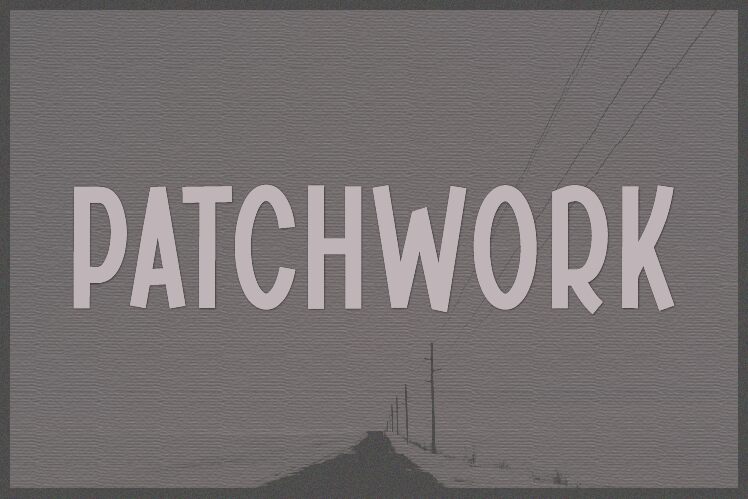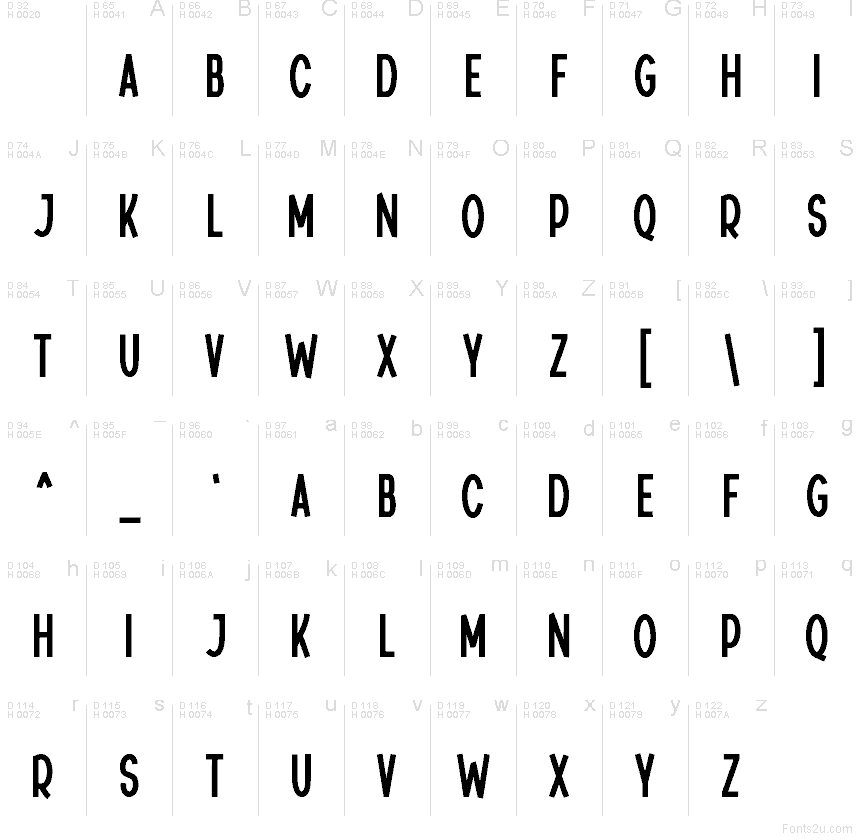
Patchwork font by HannaBie Creative Studio is a free decorative display typeface with tall, tightly packed letters that feel hand-cut and slightly unruly. The strokes are thick and inky, with subtle wobbles that give every word a scrappy, collage-like energy-like headlines pasted from bold magazine clippings. Despite the rough charm, the spacing is deliberate, so your text reads clearly while still hitting with that loud, DIY attitude.
Using Patchwork, this free font shines on gig posters, zines, indie brand logos, bold packaging, event flyers, and punchy social graphics where you want instant, gritty impact. Its condensed shape lets you squeeze big, shouting headlines into small spaces without losing legibility. For balance, pair Patchwork with a clean, neutral sans serif in smaller text, and keep Patchwork large so its textured personality can really breathe.